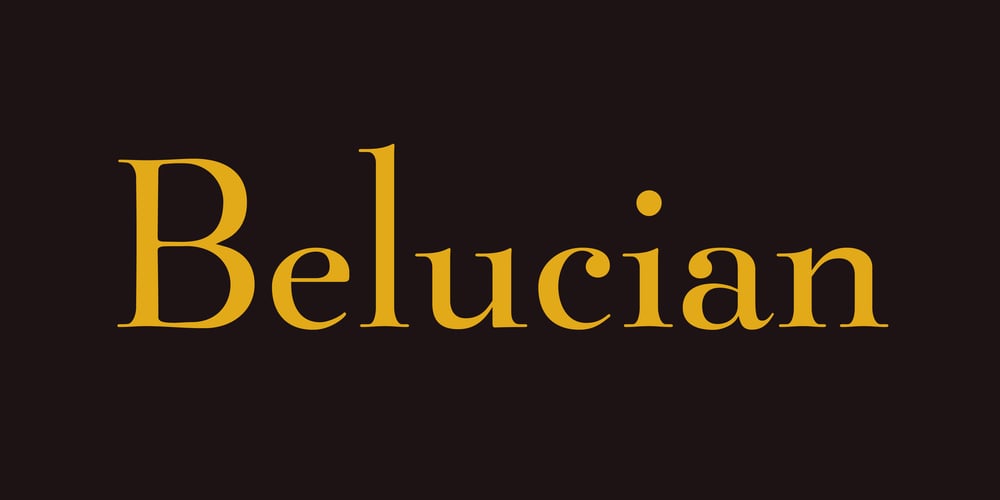
Belucian Font Family was designed by David Berlow and published by Font Bureau. Belucian contains 5 styles and family package options. The Belucian series offers a distinguished text design supported by dynamic headline structure. In need of a distinctive display style, Smart magazine asked Font Bureau in 1990 to revise the work of Lucian Bernhard from 1925. David Berlow prepared Belucian Demi, now accompanied by Kelly Ehrgott-Milligan’s 1994 Demi Italic, added Book and Book Italic for text, and designed Ultra for dynamic impact in headlines; FB 1990–94